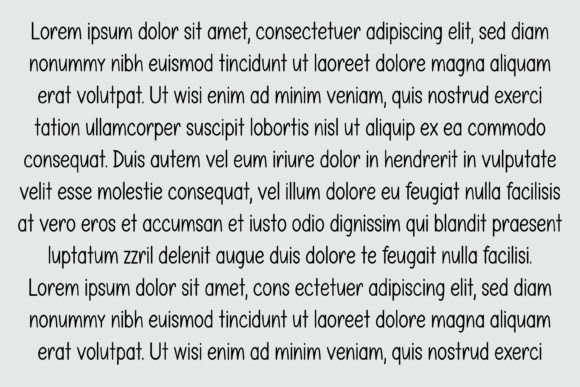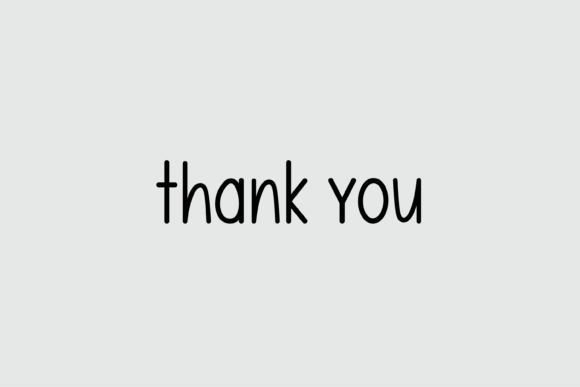
Introduction to Racey Font
As designers, we’ve all been there – staring at a blank canvas, searching for the perfect font to bring our creative project to life. Sometimes, it’s not just about finding a font that gets the job done, but one that adds a touch of personality and whimsy to our designs. That’s where the Racey Font comes in – a delightful, handwritten display font that’s sure to brighten up any project.
With its friendly and approachable feel, Racey Font is the perfect addition to any design resource. Whether you’re working on a high-quality magazine spread or a wedding invitation, this font’s unique charm is sure to make your design stand out. Plus, with a transparent background, you can easily customize it to fit your needs. And the best part? It’s available for free download, making it an accessible and valuable resource for designers of all levels.
- Includes 6 unique font styles for added versatility
- Designed with a bold and dynamic feel, perfect for making a statement
Honest Review: Racey Font
I recently stumbled upon the Racey Font and I must say it’s been a game-changer for my design projects. This font is a great addition to any design resource library, offering a unique and high-quality look that’s perfect for creative projects.
What works well with Racey Font is its versatility. The font comes in a range of styles and weights, making it easy to use in various contexts. I particularly love the transparent background feature, which allows for seamless integration with other design elements. ✨
- Range of styles and weights
However, I did encounter some limitations with Racey Font. ⚠️ The font can be a bit difficult to read in certain situations, and the range of languages supported is limited.
Overall, I’m impressed with Racey Font and would highly recommend it to designers looking for a unique and high-quality font for their creative projects. It’s a valuable addition to any design resource library, and the free download makes it an excellent choice for designers on a budget.
Tips for Getting the Most Out of Racey Font
To get the most out of Racey Font, experiment with different font sizes, colors, and combinations. You can also use it in conjunction with other design elements to create a unique and eye-catching visual identity.
Racey Font is ideal for a variety of creative projects, including social media graphics, logos, business cards, and presentations. Its transparent background and high-quality design make it a popular choice among designers and marketers.